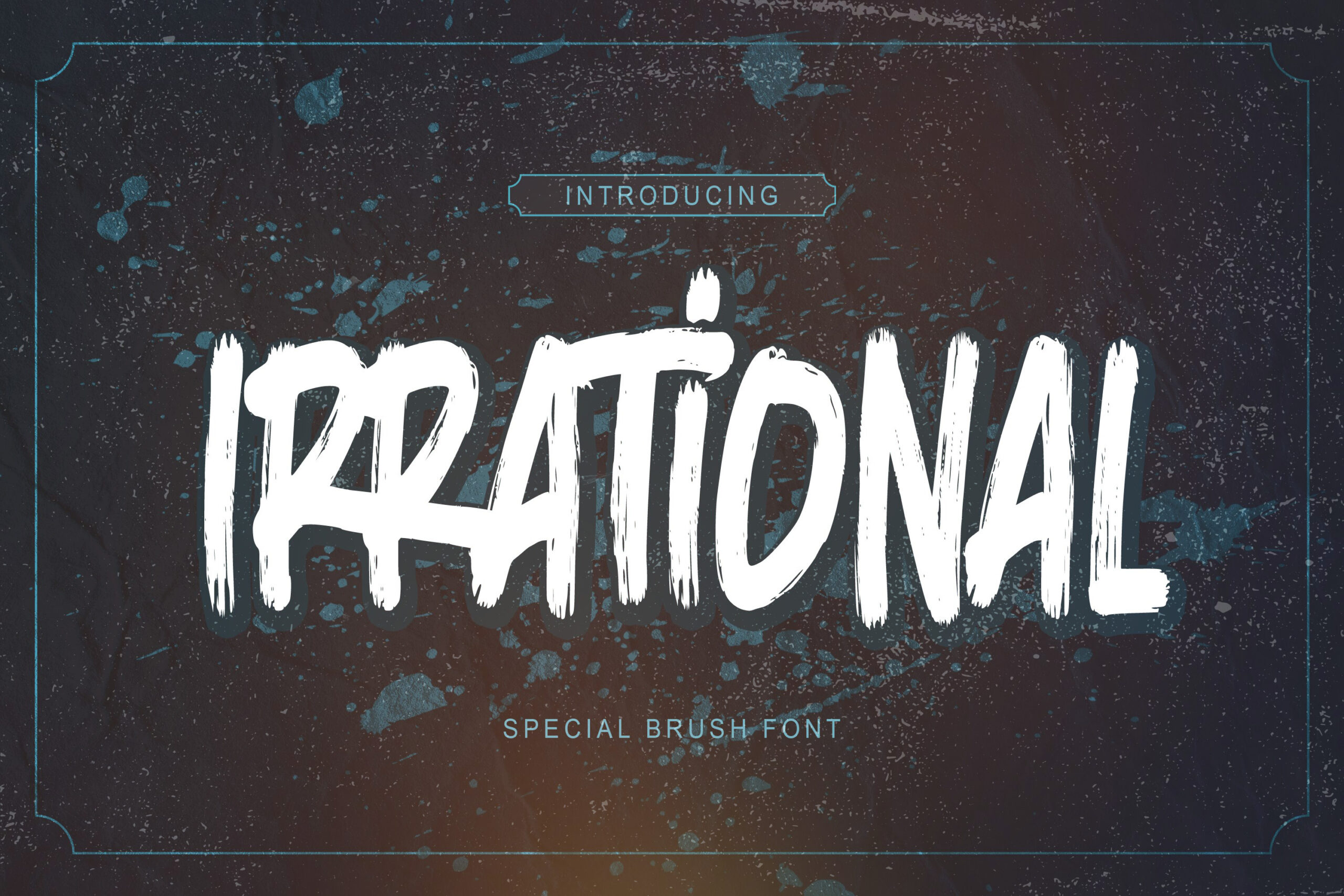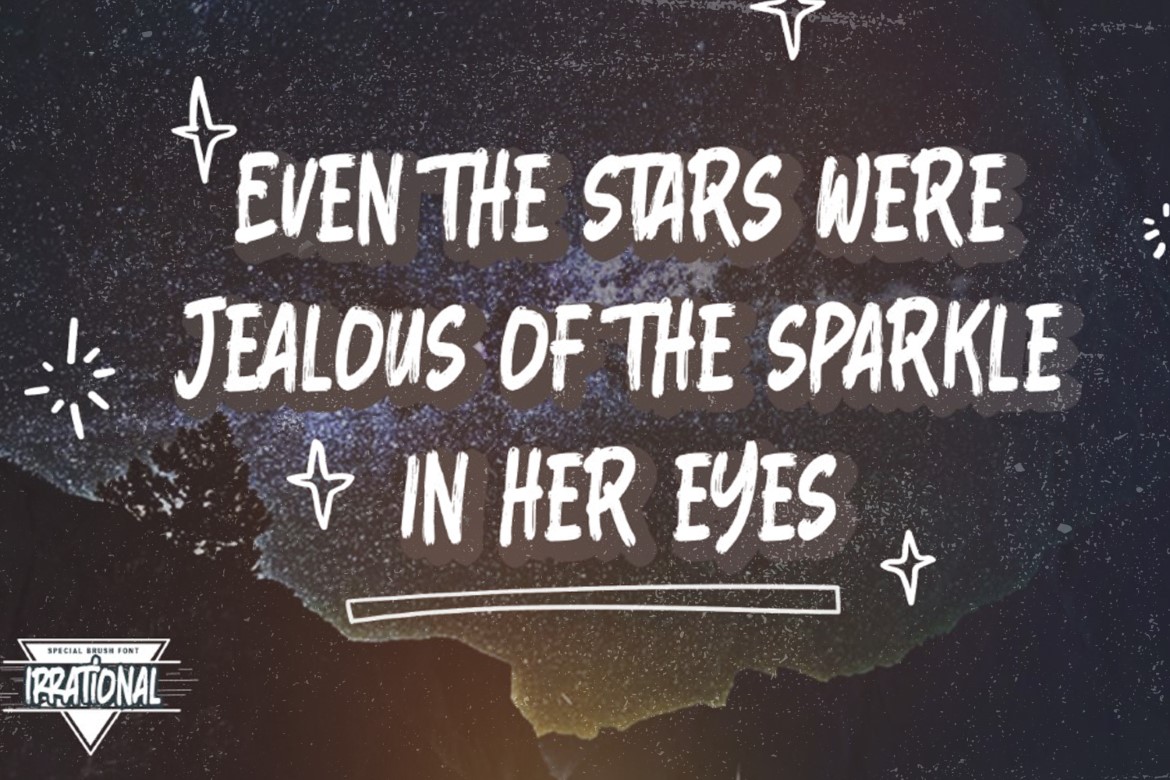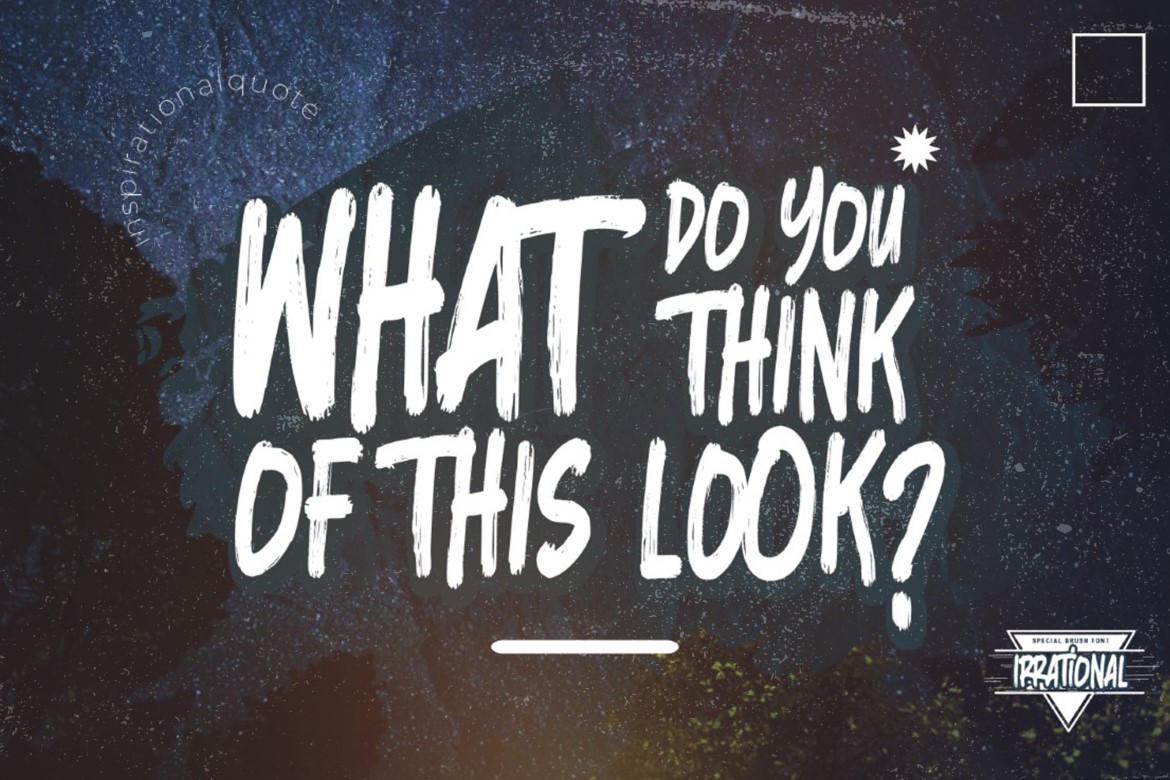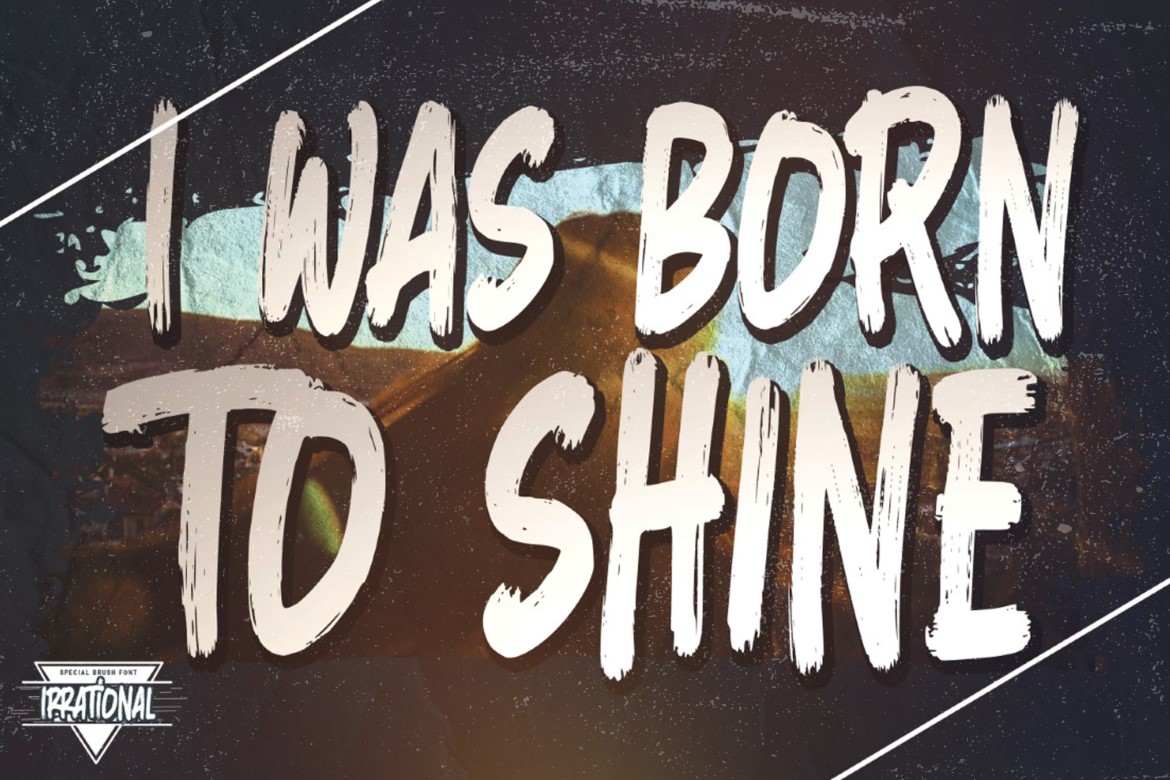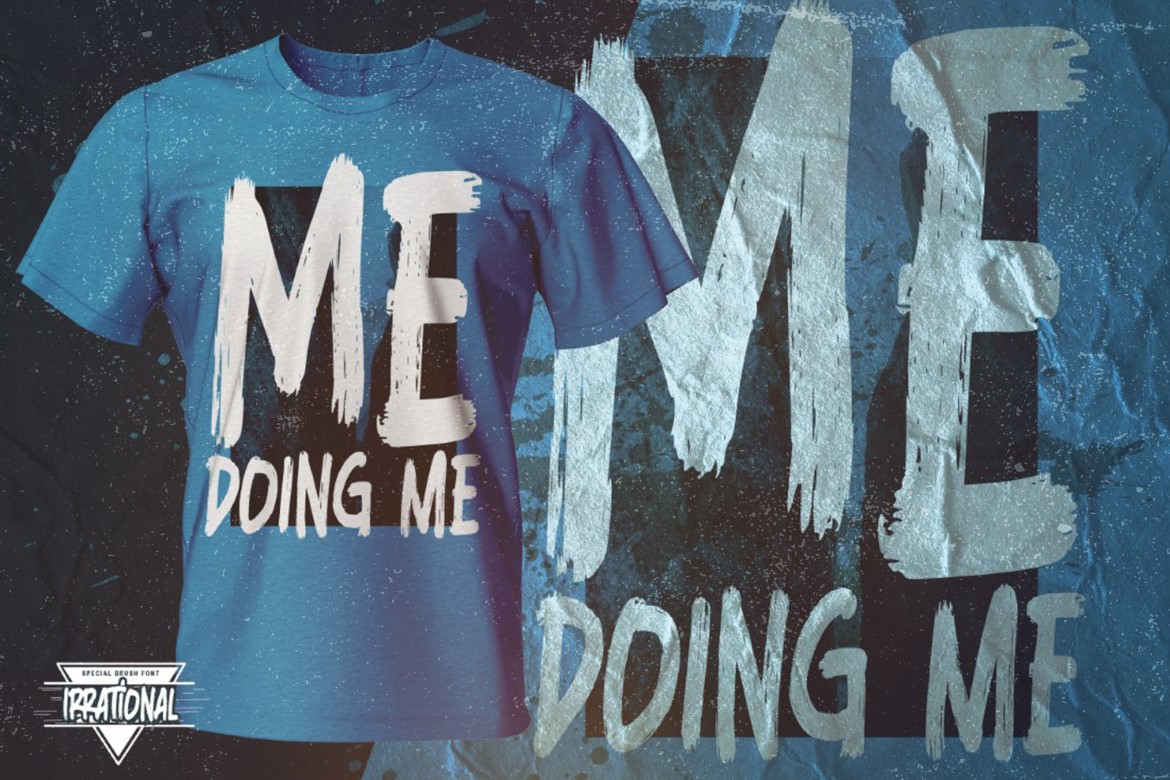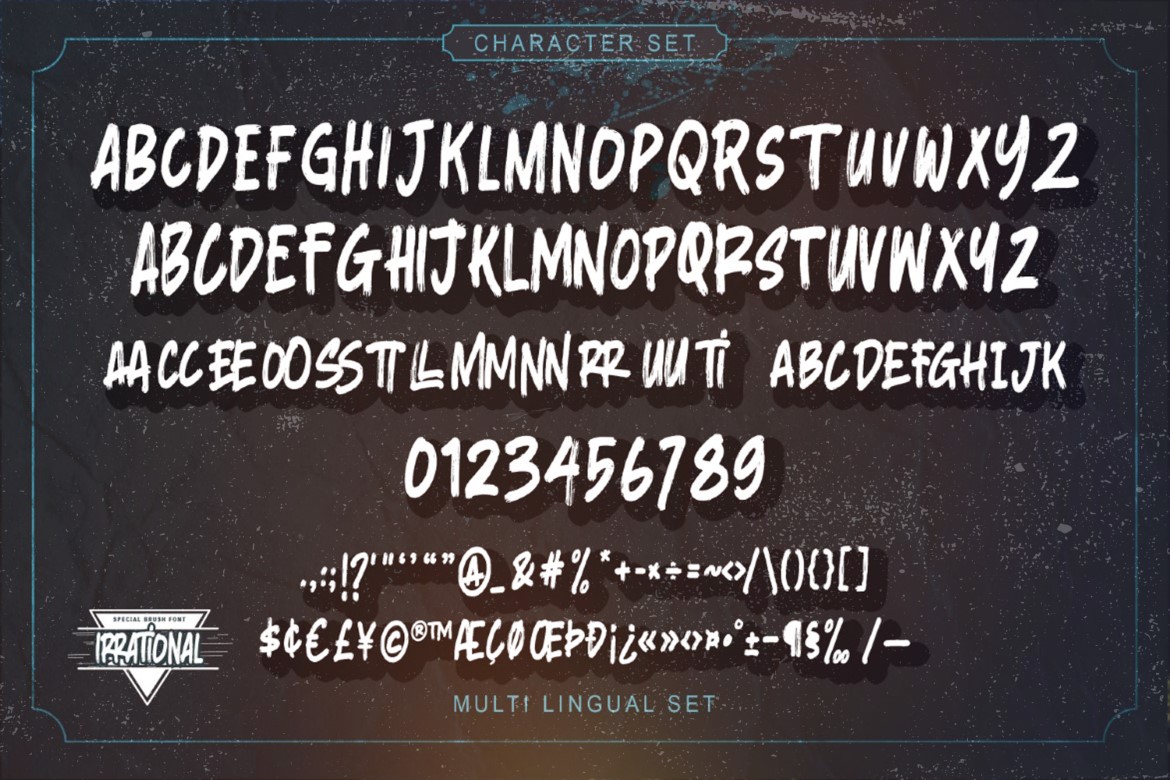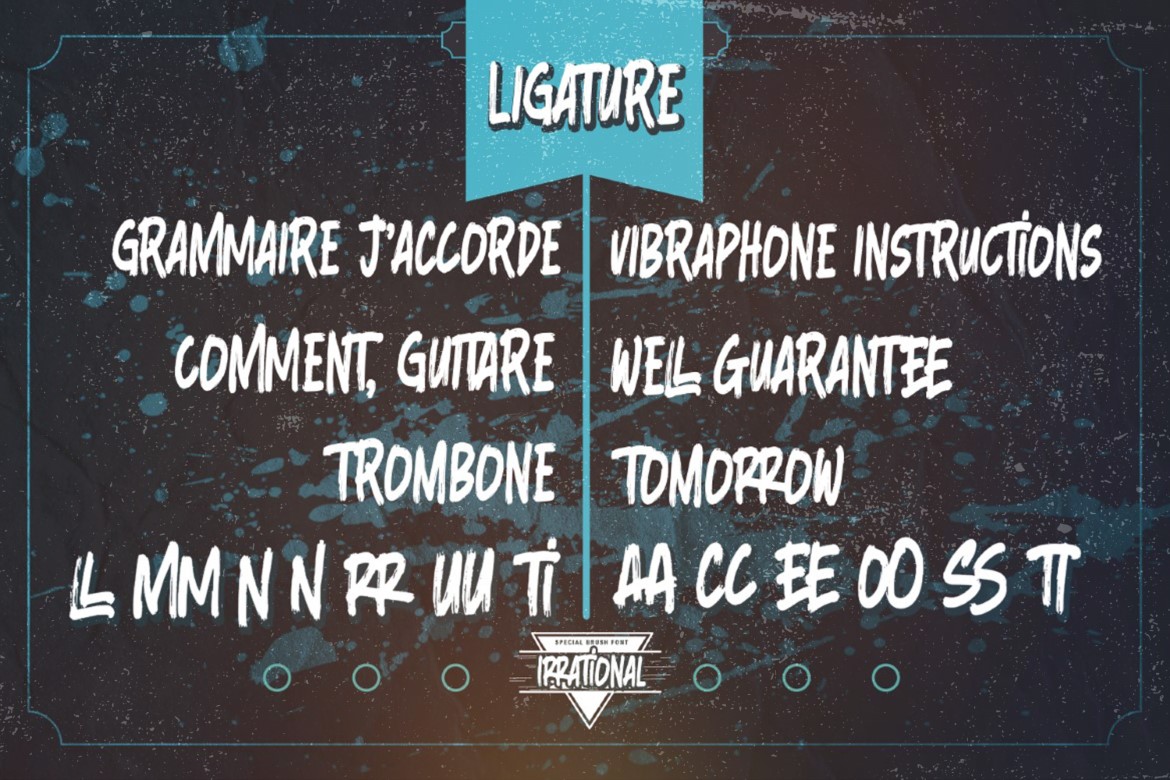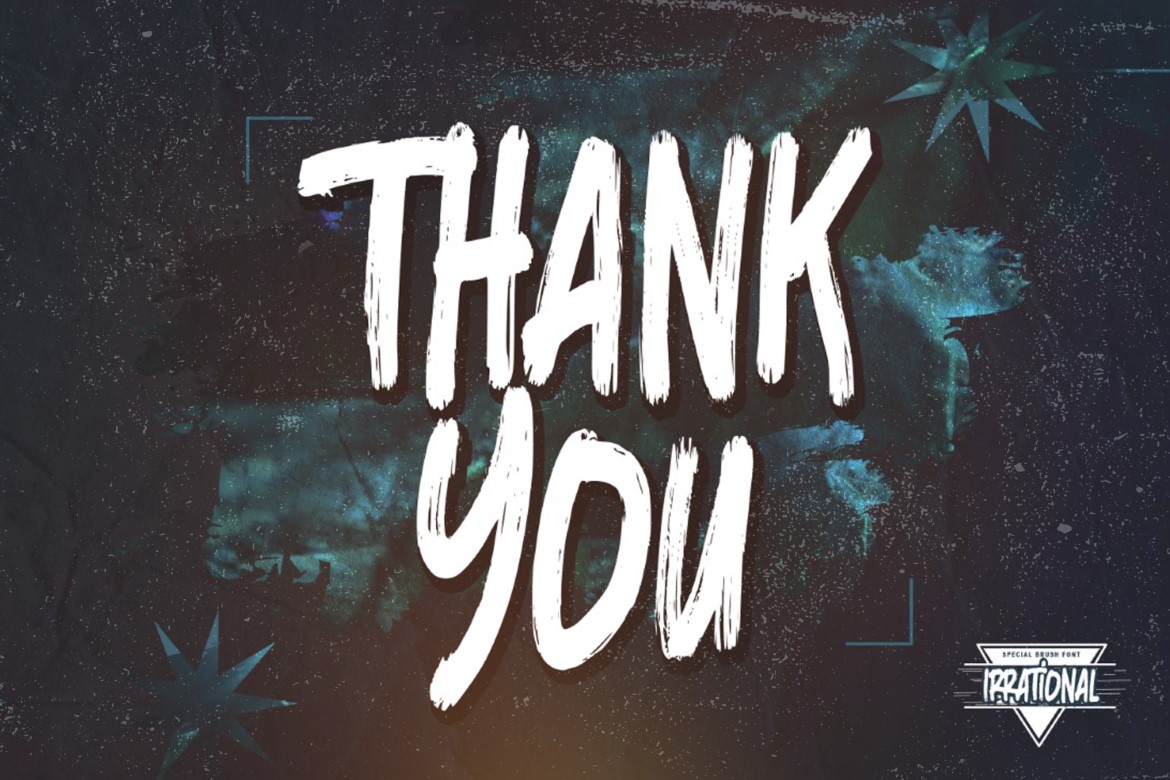
Irrational – Strong Brush Font is an Special Authentic brush Font is an Authentic brush Font that is written casually and quickly.
That is why Irrational has a authentic, and strong characteristic more natural look.
You can activate Ligature And Alternate OpenType panel,
Irrational Perfect for designs, branding projects, Logo design,Quotes product packaging and another Project that require cool strong display font.
- Alternate glyphs